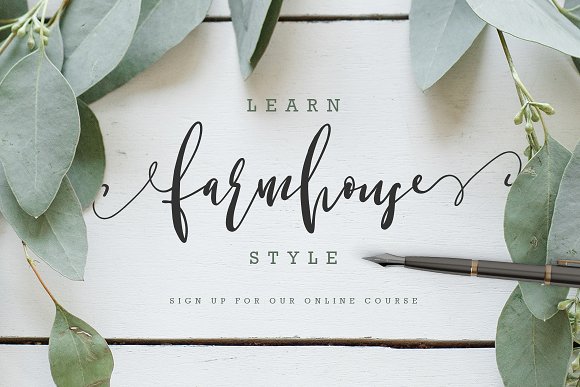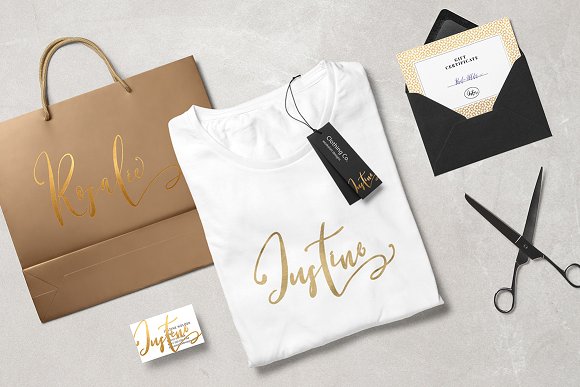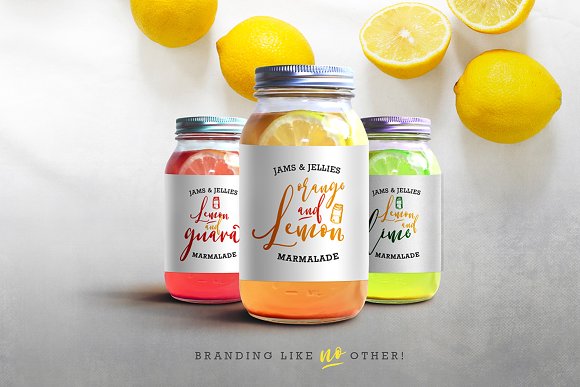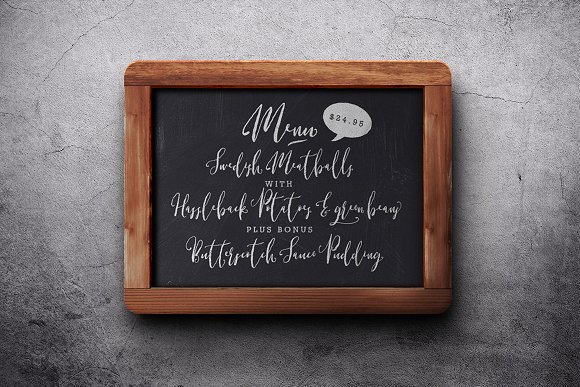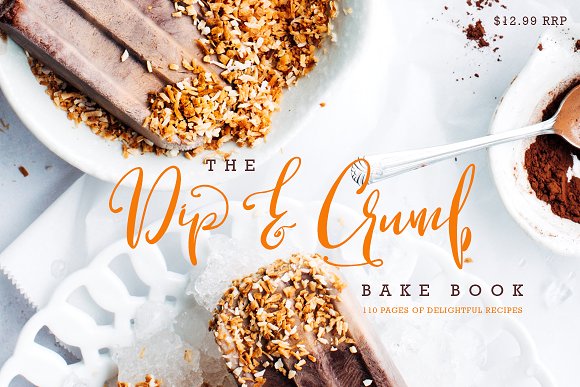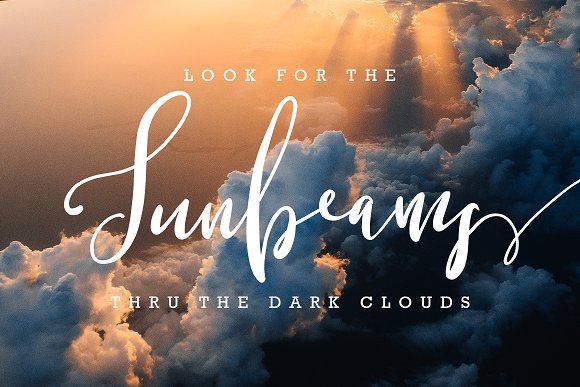
Introduction to Lemons and Soda Font Font
Fonts play a crucial role in design, and the Lemons and Soda Font font is a typeface that brings both character and versatility to any project. Whether you’re working on a branding project, a website, or a print design, the Lemons and Soda Font font offers a unique style that can elevate your work.
Lemons And Soda is a beautiful handcrafted font created by Creativeqube.
Key Features of Lemons and Soda Font Font
Why Choose Lemons and Soda Font Font?
The Lemons and Soda Font font is more than just a typeface – it’s a design tool that helps you communicate your message with style and clarity. Its unique character set and versatile design make it suitable for a wide range of applications, from elegant invitations to bold headlines.
With its carefully crafted letterforms and balanced proportions, the Lemons and Soda Font font ensures readability and visual appeal across all mediums.
What makes Lemons and Soda Font font special?
The Lemons and Soda Font font stands out with its unique design, exceptional readability, and versatility across various design applications.